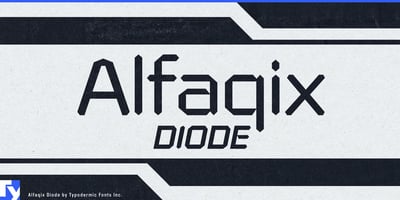
Alfaqix Diode
Alfaqix Diode font
Alfaqix Diode Font Family was designed by Ray Larabie and published by Typodermic. Alfaqix Diode contains 8 styles and family package options. Illuminate your designs with Alfaqix Diode, Typodermic Fonts’ cutting-edge typeface that bridges today’s digital landscape with tomorrow’s technological horizons. This innovative font family channels the essence of segmented LCD displays, infusing your work with a distinctive technical sophistication.Alfaqix Diode’s squarish, modular structure and pointed stroke ends evoke the precise geometry of crystal diodes, creating a typeface that’s both visually striking and technologically resonant. Available in four meticulously crafted weights—Light, Regular, SemiBold, and Bold, each complemented by italics—Alfaqix Diode offers a spectrum of expressive possibilities for forward-thinking designers.From sleek app interfaces to engaging digital advertisements and commanding web layouts, Alfaqix Diode empowers you to craft visuals that pulse with digital energy. Its broad language support, encompassing most Latin-based European writing systems, ensures your message shines clearly across linguistic boundaries—from Afrikaans to Zulu.Alfaqix Diode isn’t just a font; it’s a conduit for your most electrifying ideas. Whether you’re designing for tech startups, digital platforms, or any project that demands a futuristic edge, this typeface provides the visual voltage to make your concepts truly luminous. With Alfaqix Diode, you’re not just setting type—you’re illuminating the path to tomorrow’s design landscape.